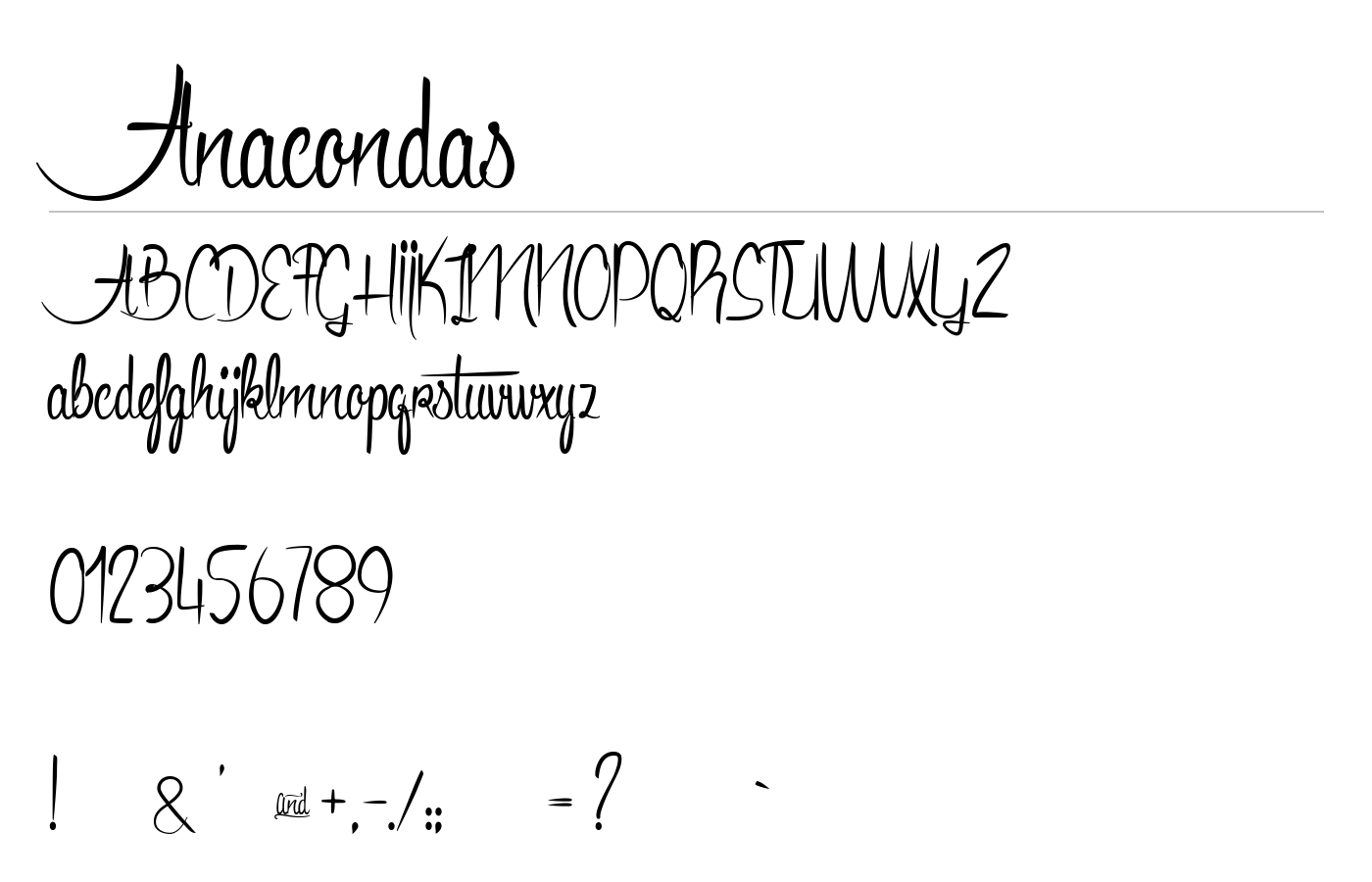
Anacondas is a delicate, hand-drawn script font with a quirky and artistic flair, featuring narrow, tall letterforms and smooth, flowing strokes. Its casual yet elegant style makes it perfect for creative projects, invitations, and branding that seek a personal, whimsical touch. This font shines in uses where a unique, approachable, and slightly playful vibe is desired.
Anacondas Font